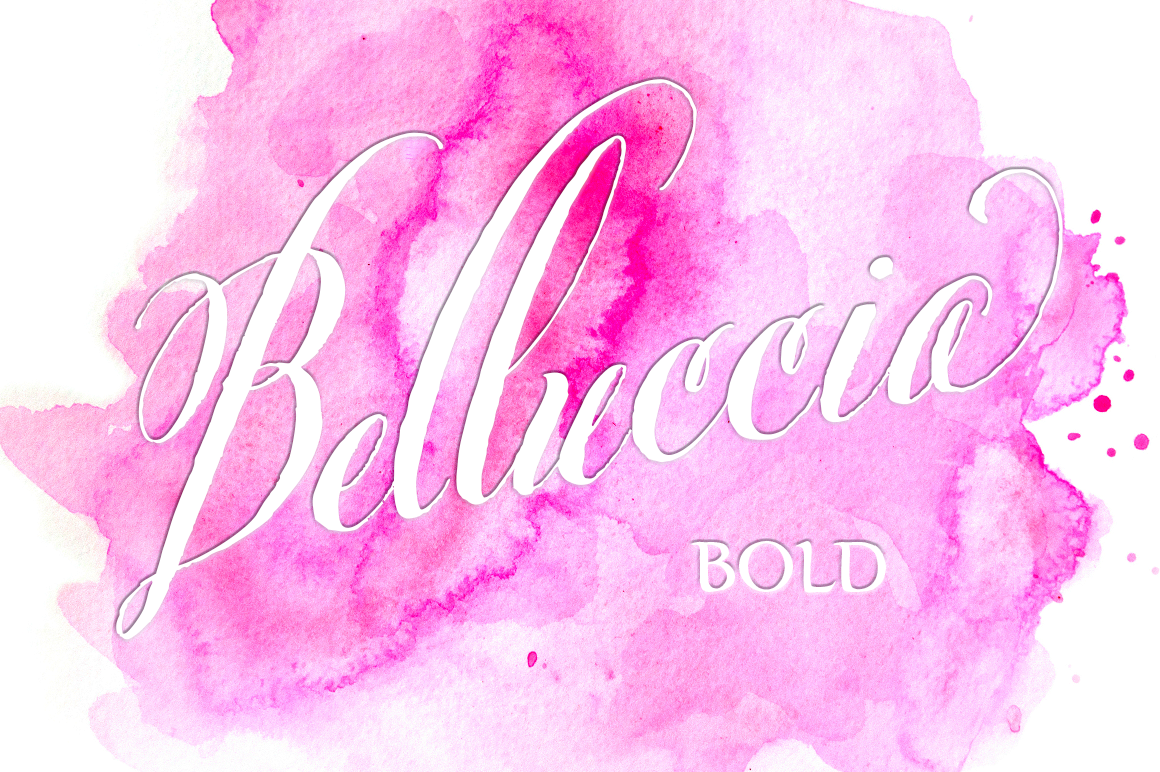
Belluccia Bold Font
Belluccia Bold Calligraphy Font was created for any project seeking a custom hand lettered look. (This is the NON-Pro version.) By purchasing this font, you can easily create all of your wedding signage: invitations, envelope addressing, programs, menus, place cards, favor tags, thank you cards, etc..
Belluccia contains a total of 408 glyphs including one version of the Belluccia font alphabet and a basic set of flourishes and ornaments. (The flourishes and ornaments are only accessible in Open Type applications like Adobe Illustrator and InDesign.)